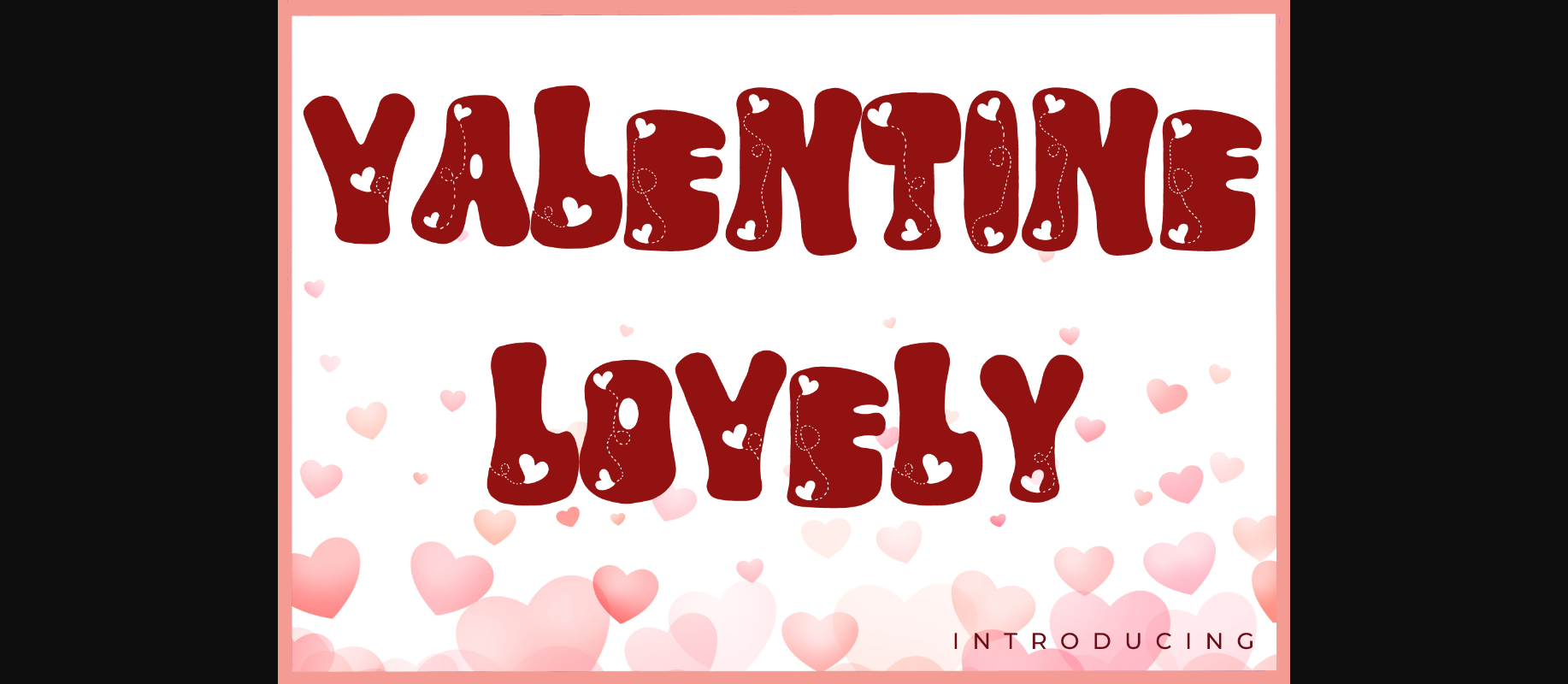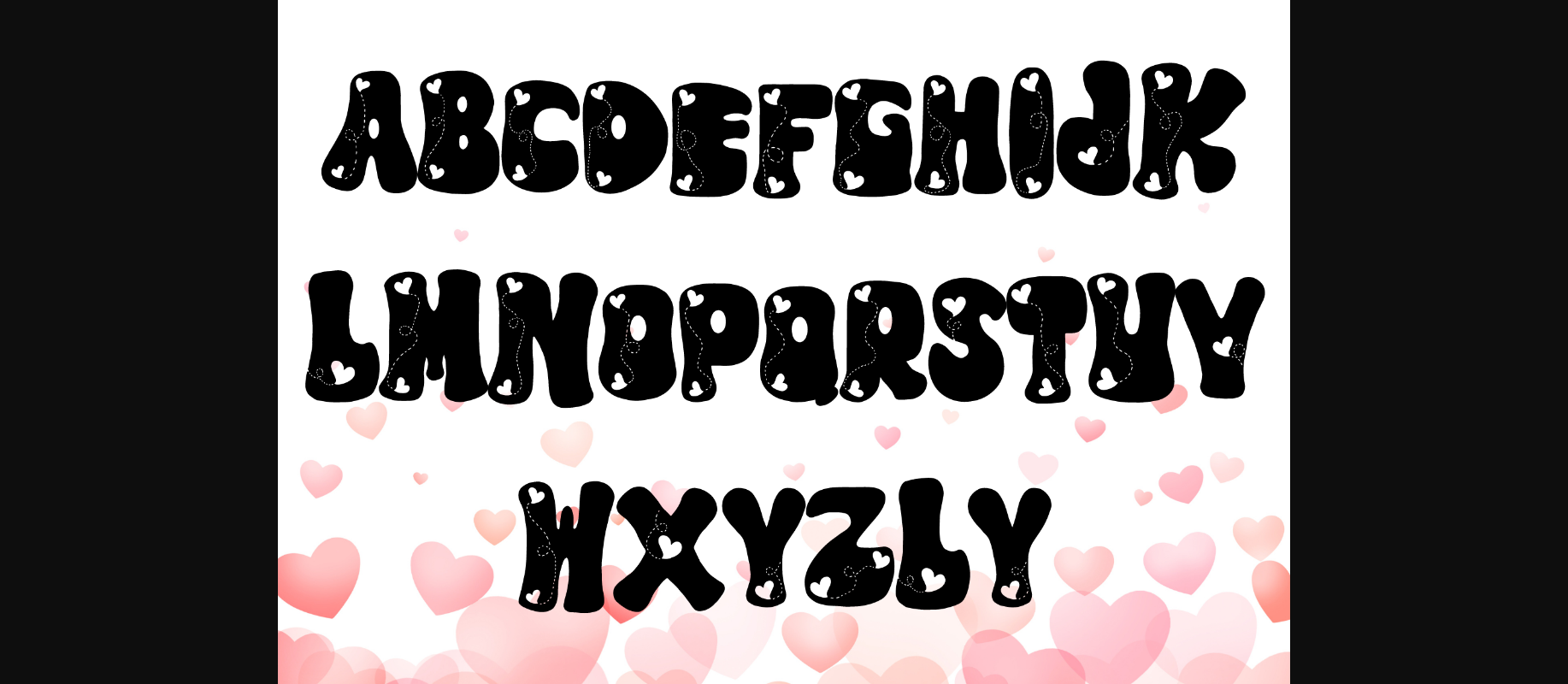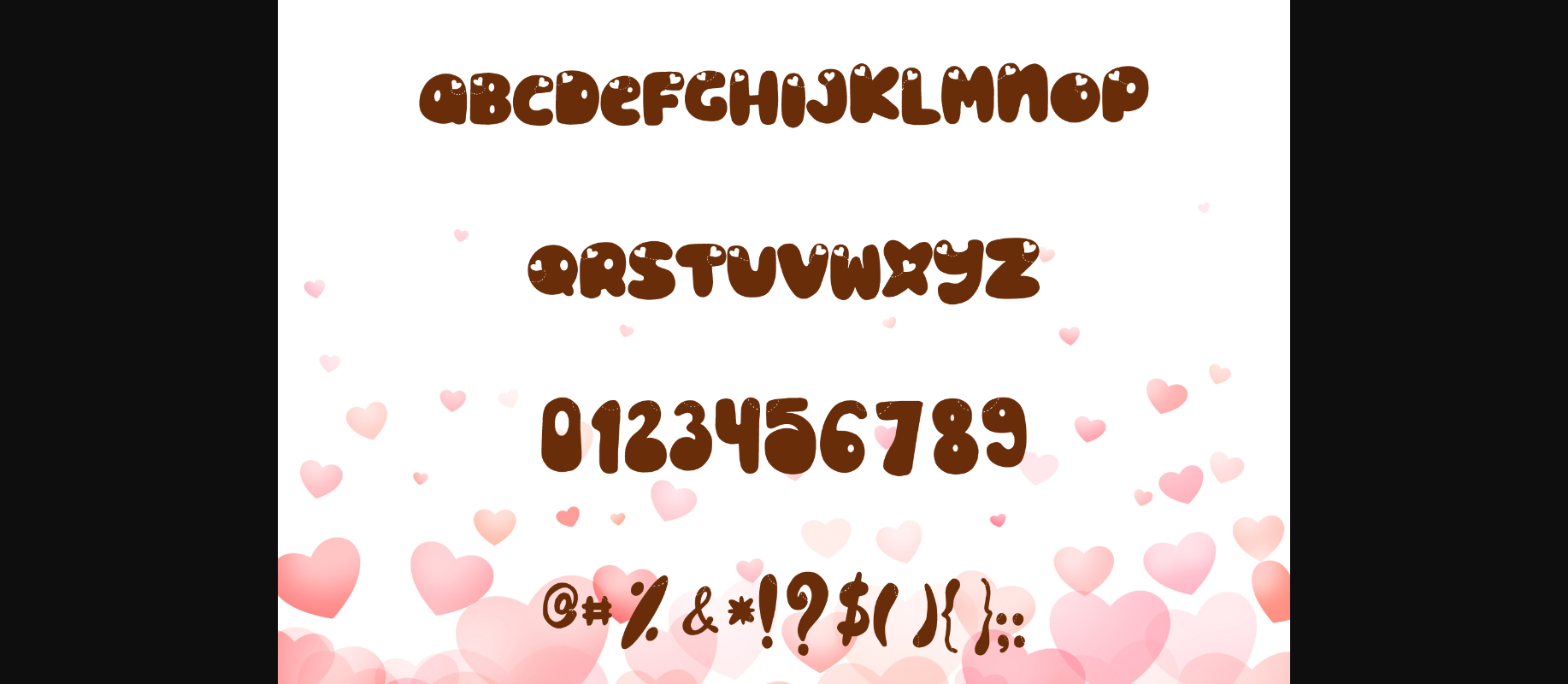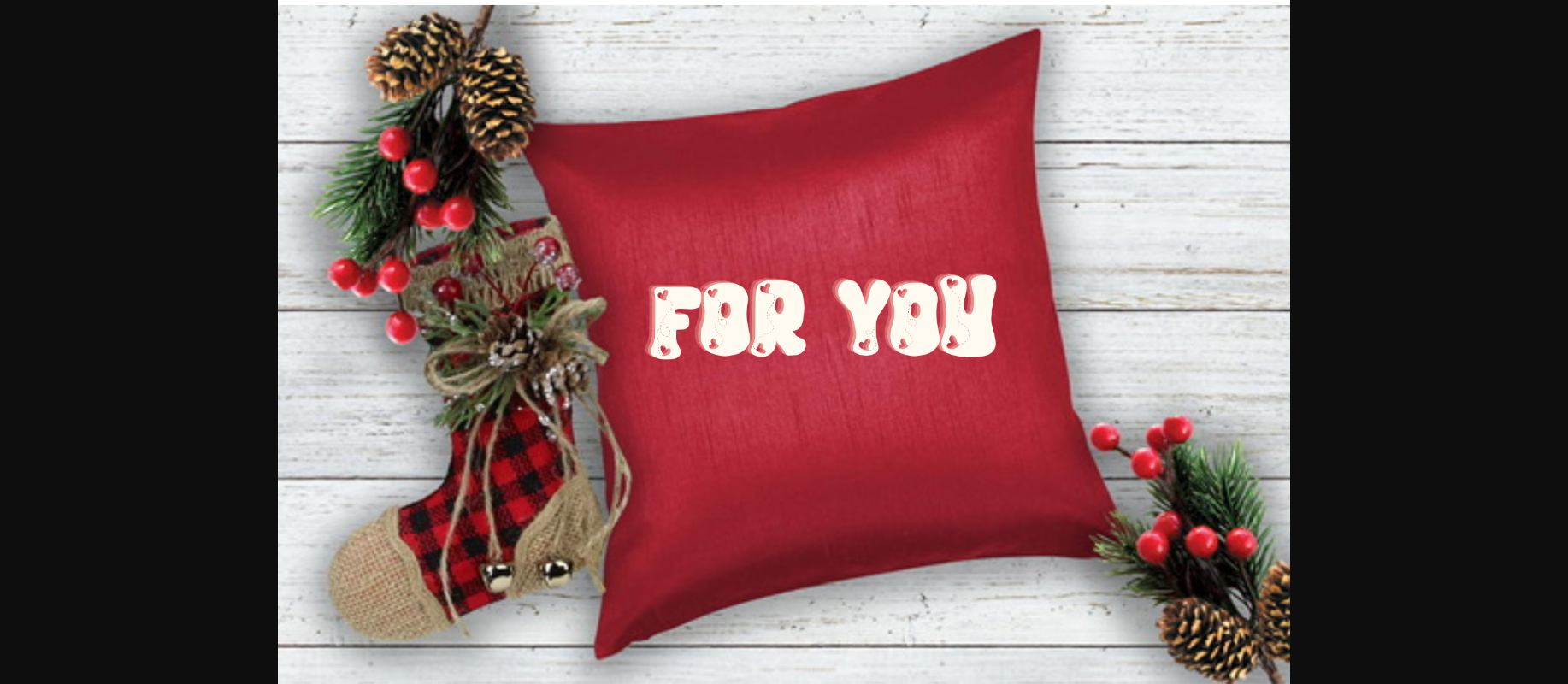
Valentine Lovely Font
About Valentine Lovely Font
Valentine Lovely is a romantic and cute decorative font suitable for Valentine’s Day gifts, decorating presentations, advertising, illustrations, and many other purposes.
It is a creative design suitable for all applications.